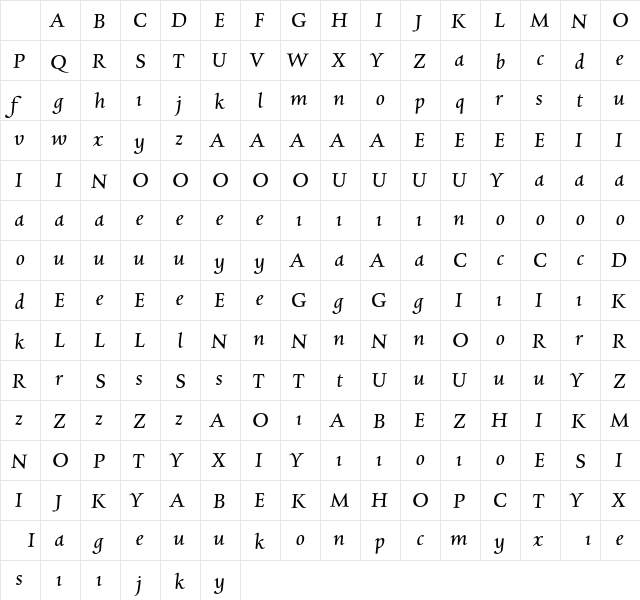
Complete Charpentier Renaissance Pro Italic glyph index. Displaying only characters natively supported by Charpentier Renaissance Pro Italic font.
Charpentier Renaissance Pro is a composed and adaptable typeface that performs quietly and consistently across a wide range of design contexts. The slanted form adds forward momentum and visual energy.
Pro Tip: Use Charpentier Renaissance Pro for emphasis, pull quotes, and subheadings where its slanted energy can add rhythm to the layout.